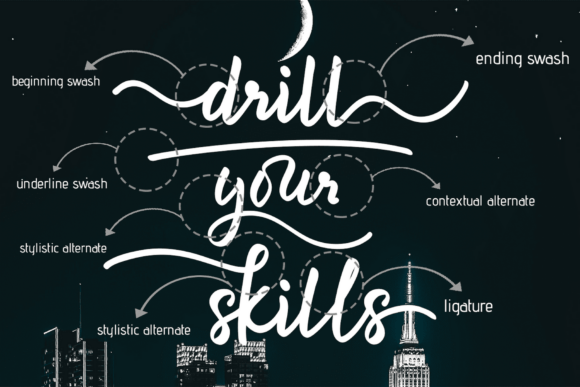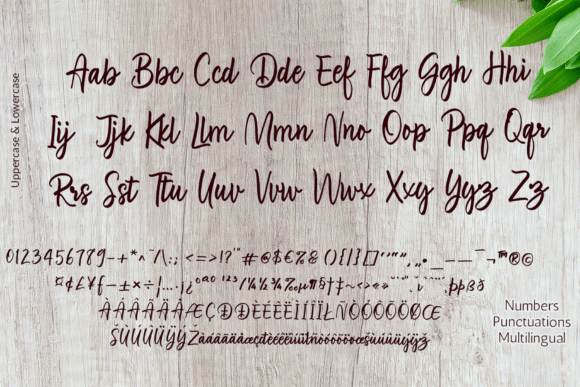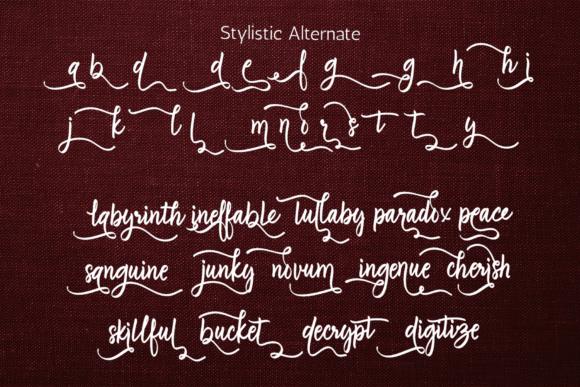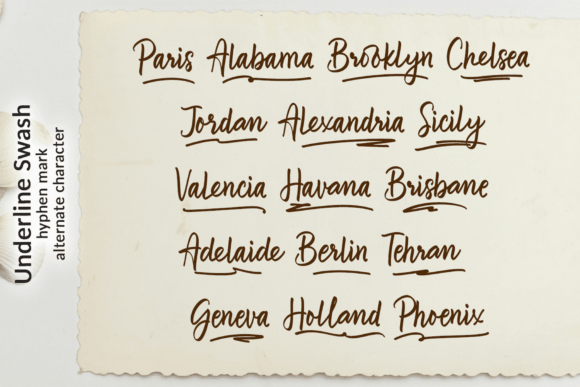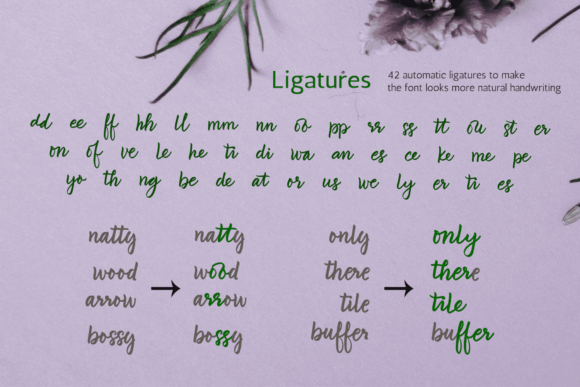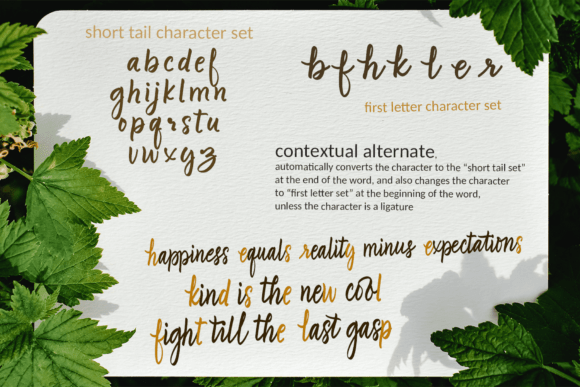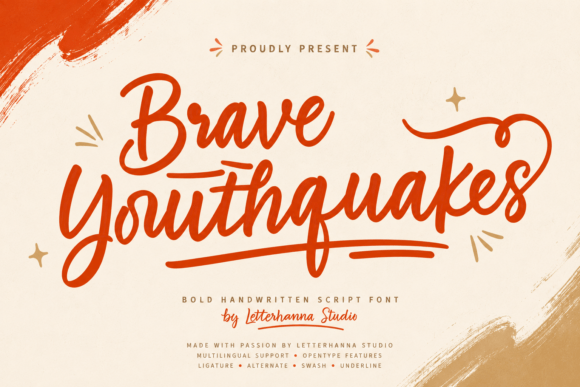
Brave Youthquakes Font: Elevate Your Designs with Elegant Handwritten Typography
Are you tired of using generic fonts that lack personality and flair? Look no further than the Brave Youthquakes Font, a stunning handwritten font that is sure to take your designs to the next level. With its beautiful, flowing script and extensive feature set, this font is perfect for a wide range of creative projects, from wall displays and wedding invitations to social media posts, logos, advertisements, product packaging, and more.
A Beautifully Crafted Handwritten Font
Brave Youthquakes Font is a meticulously crafted handwritten font that exudes elegance and sophistication. Its flowing script and beautiful letterforms make it perfect for designs that require a touch of personality and flair. Whether you’re a designer, crafty DIY enthusiast, or simply someone who appreciates beautiful typography, this font is sure to impress.
Extensive Feature Set
One of the standout features of Brave Youthquakes Font is its extensive feature set. This font comes with a full set of:
• Uppercase and lowercase letters
• Numbering and punctuations
• Multilingual support
• Ligatures
• Beginning and ending swashes
• Underline swashes
• Stylistic alternates
• Extra swashes
But that’s not all. Brave Youthquakes Font also comes with a full set of lowercase alternates, allowing you to achieve that authentic handwritten feel. Additionally, the font includes over 40 ligatures, which enable you to create beautiful, flowing connections between letters.
Brave Youthquakes Font is also PUA (Private Use Area) encoded, which means that you can access all of the glyphs and swashes with ease. This makes it simple to customize your designs and experiment with different typography combinations.
Why Choose Brave Youthquakes Font?
So, why should you choose Brave Youthquakes Font for your next design project? Here are just a few reasons:
• Unique and elegant typography: Brave Youthquakes Font offers a unique and elegant typography that will set your designs apart from the crowd.
• Highly versatile: This font is perfect for a wide range of projects, from print materials to digital designs.
• Easy to use: With its PUA encoding and extensive feature set, Brave Youthquakes Font is easy to use and customize.
• Beautifully crafted: This font is meticulously crafted to provide a beautiful, flowing script that will elevate your designs.